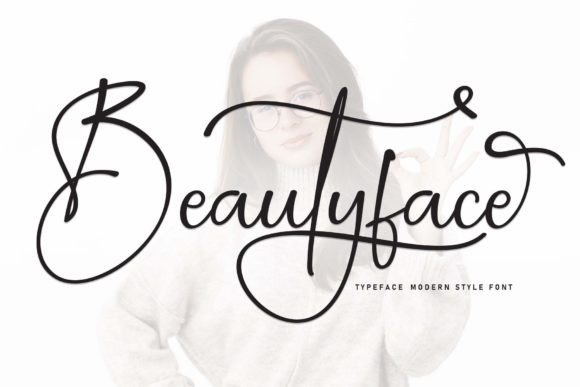
Introducing Beautyface Font: Elevate Your Designs with Elegance
Are you on the hunt for a font that exudes sophistication, elegance, and a touch of modernity? Look no further than Beautyface Font, a stunning handwritten typeface that is sure to capture your heart. In this article, we’ll dive into the world of Beautyface, exploring its unique features, design inspiration, and the endless possibilities it offers for designers and crafters alike.
Handwritten fonts have a way of adding a personal touch to any design project. They convey a sense of warmth, approachability, and creativity that is hard to replicate with more traditional typography. Beautyface Font takes this concept to the next level, blending classic calligraphic influences with a fresh, contemporary feel.
What Makes Beautyface Font So Special?
Beautyface Font is an exquisite handwritten font, masterfully designed to become a true favorite among designers and crafters. Its unique blend of classic and modern elements makes it the perfect choice for a wide range of projects, from wedding invitations and branding materials to social media graphics and digital art.
The font’s design is characterized by:
- Classy calligraphic influences: Beautyface Font boasts elegant, flowing lines that evoke the sophistication of traditional calligraphy.
- Contemporary feel: Despite its classic roots, Beautyface Font feels fresh and modern, making it perfect for designers looking to create something new and exciting.
- High legibility: The font’s clear, flowing lines ensure that it remains easy to read, even at smaller sizes.
Beautyface Font is an incredibly versatile typeface that can be used in a multitude of design projects. Here are just a few ideas to get you started:
- Wedding and event invitations: Add a touch of elegance to your wedding or event invitations with Beautyface Font.
- Branding and packaging: Use Beautyface Font to create stunning brand identities, product labels, and packaging materials.
- Social media graphics: Elevate your social media presence with eye-catching graphics featuring Beautyface Font.
- Digital art and illustrations: Combine Beautyface Font with your favorite illustrations and graphics to create truly unique digital art pieces.
Why Choose Beautyface Font?
With so many fonts available, why choose Beautyface Font? Here are just a few reasons why designers and crafters are falling in love with this exquisite typeface:
- Unique and distinctive: Beautyface Font stands out from the crowd, offering a fresh and exciting alternative to more traditional typography.
- Elegant and sophisticated: The font’s classic calligraphic influences and modern feel make it perfect for designers looking to create elegant, high-end designs.
- Easy to use: Beautyface Font is incredibly easy to use, with clear, flowing lines that make it simple to read and understand.
In conclusion, Beautyface Font is a stunning handwritten typeface that is sure to capture your heart. With its unique blend of classic calligraphic influences and modern feel, it’s the perfect choice for designers and crafters looking to elevate their designs to the highest levels. Whether you’re working on a wedding invitation, branding materials, or digital art, Beautyface Font is the perfect choice. So why wait? Fall in love with Beautyface Font today and bring your projects to life with elegance and sophistication!